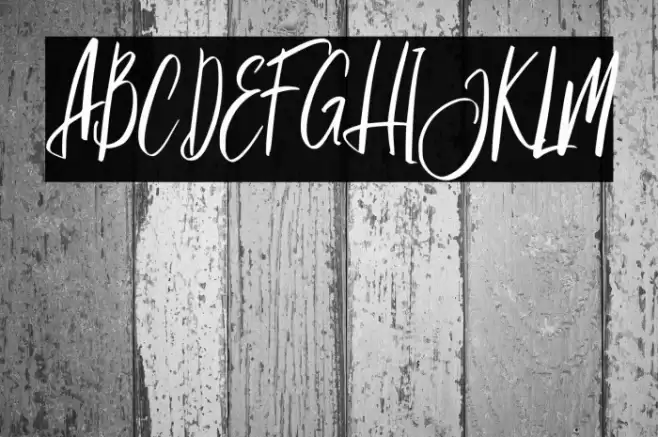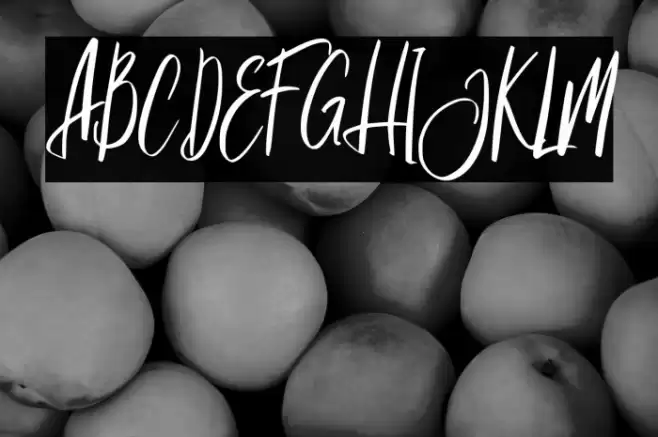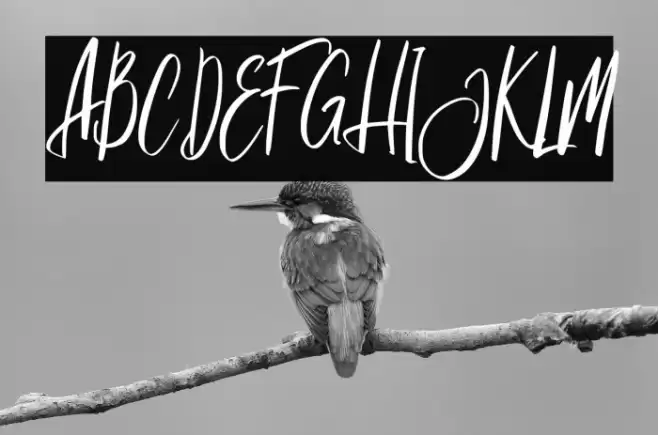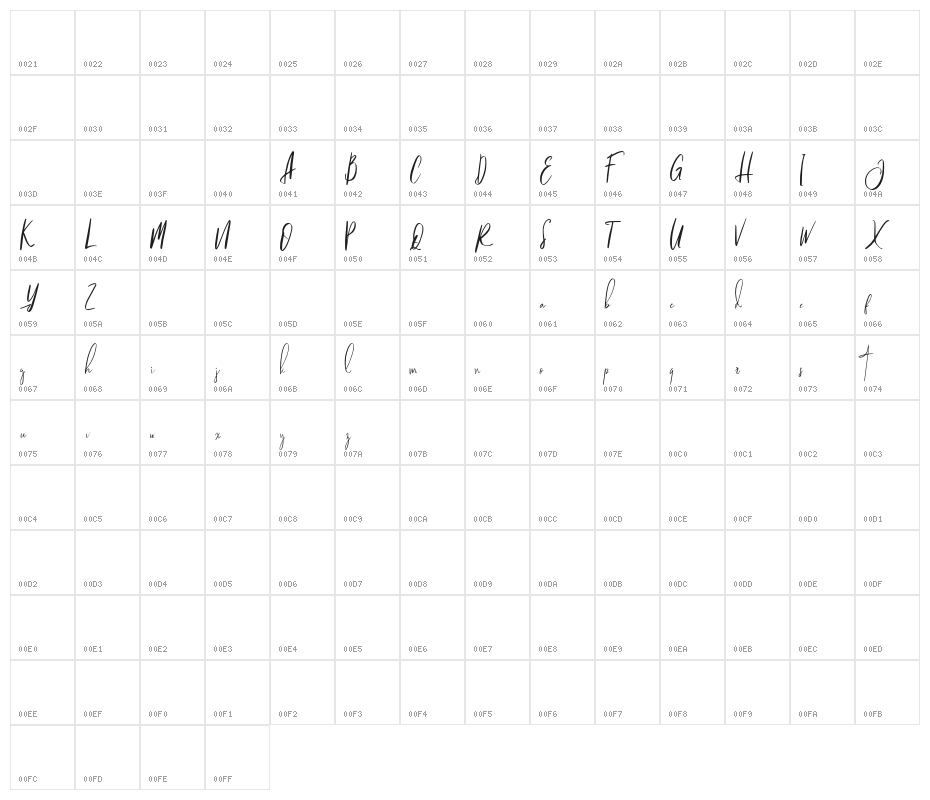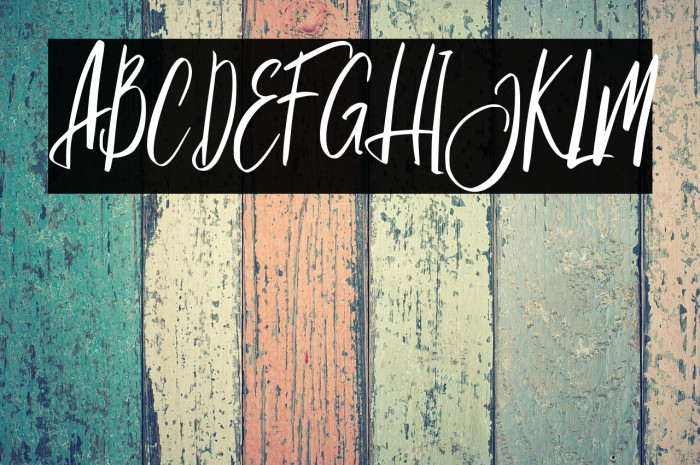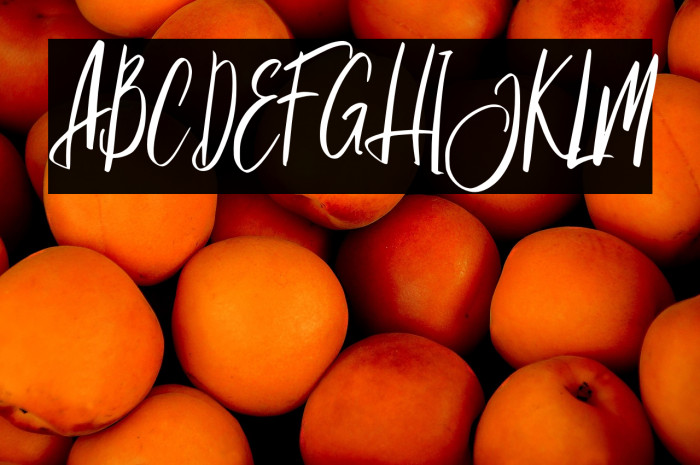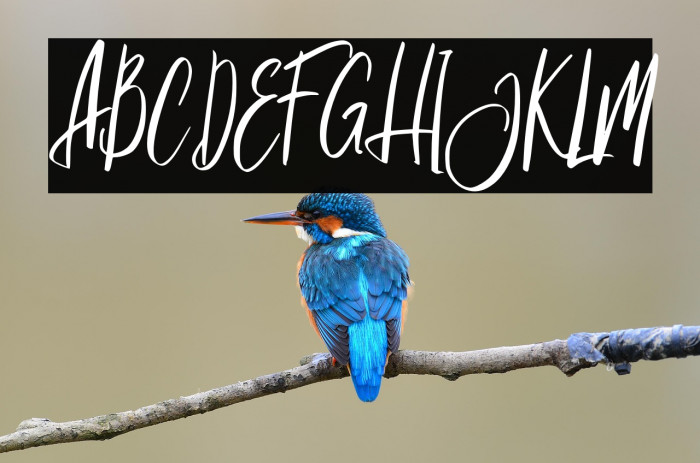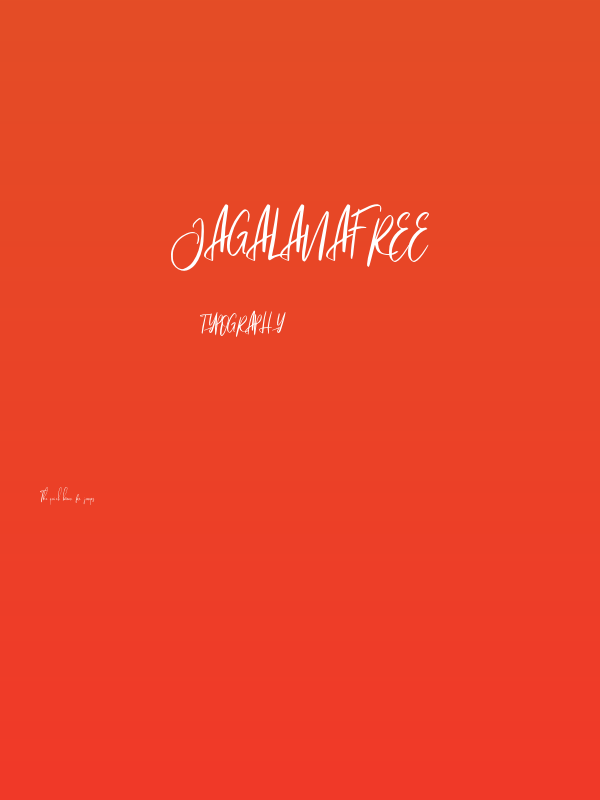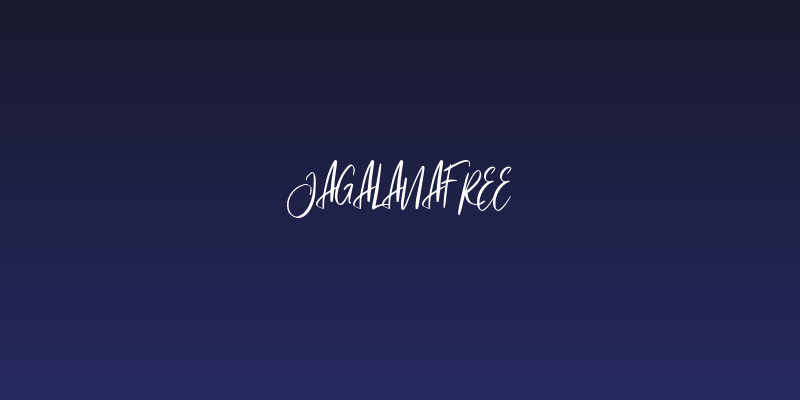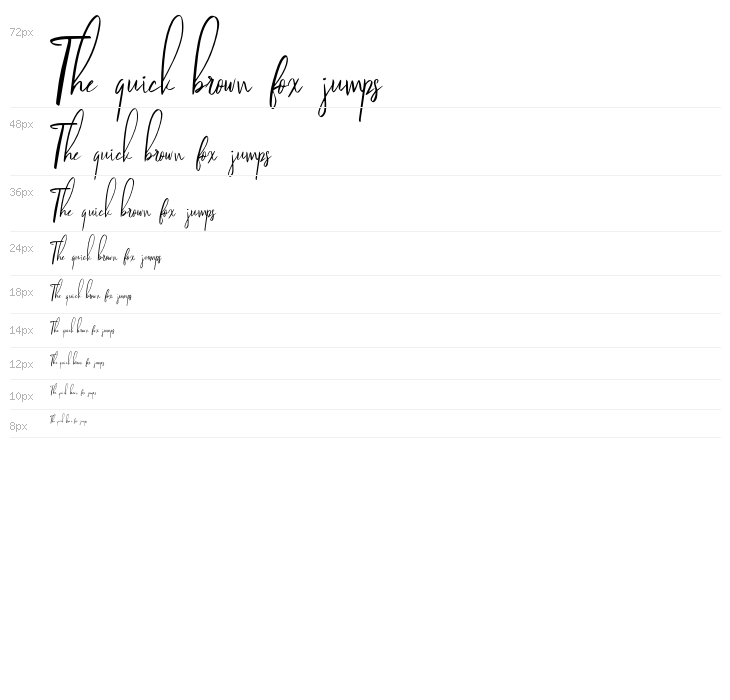
JagalanaFREE Font
JagalanaFREE Description
This font features a dynamic and expressive handwritten style, characterized by its fluid and flowing letterforms. The uppercase letters exhibit a bold and confident appearance with varying stroke widths, creating a sense of movement and energy. The lowercase letters maintain a consistent style, offering a more delicate and elegant touch. The overall design is both artistic and modern, making it suitable for creative and informal applications. The font's unique personality is further enhanced by its slightly irregular baseline, adding to its charm and authenticity.
A dynamic, expressive handwritten font with fluid and flowing letterforms from Uncategorized fonts.
- Font: JagalanaFREE
- Proposed Projects: Ideal for wedding invitations, greeting cards, branding projects, and artistic posters.
- Use Case: Logos, Headlines, Artistic projects